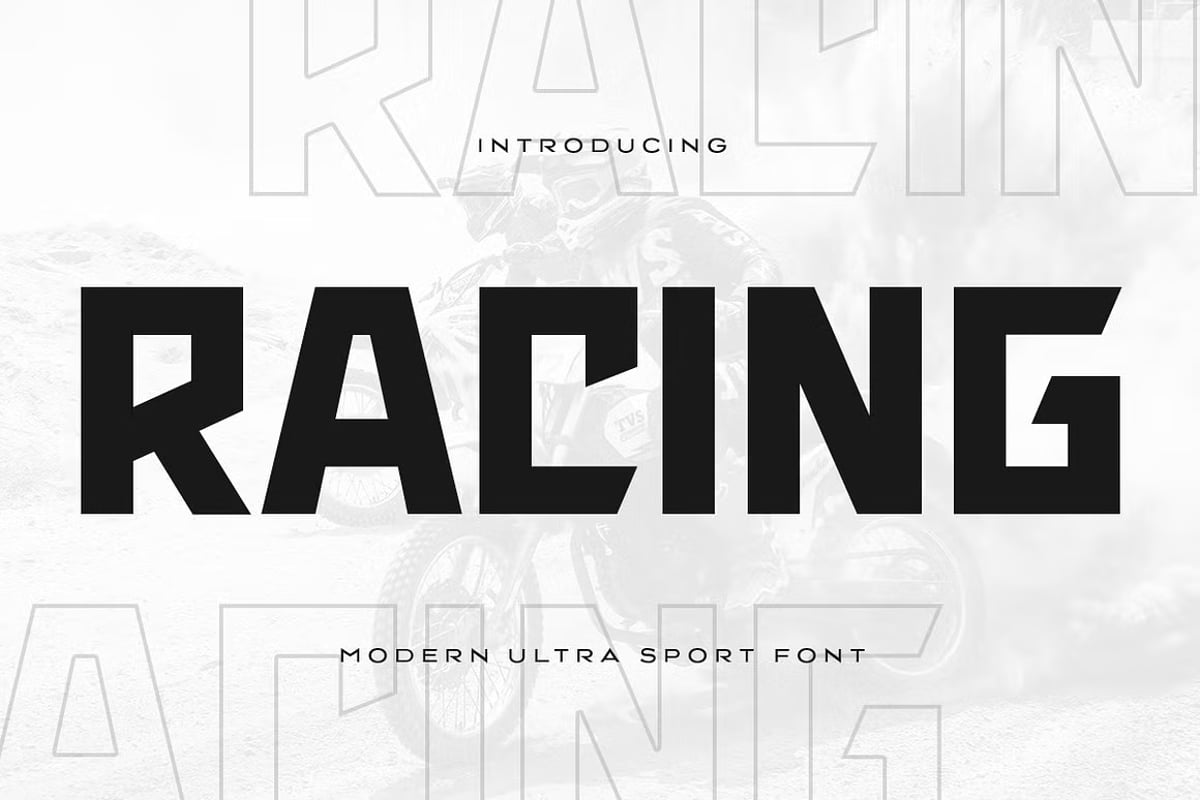
Racing - Modern Ultra Sport Font
Power up your designs with Racing, a modern ultra sport font built for high-impact branding and dynamic headlines. This bold typeface brings energy and momentum to sport, technology, action, and fighting themed projects. Racing font delivers a contemporary edge with powerful letterforms designed to make your main message stand out with confidence. Perfect for creating standout typography that demands attention, Racing font adds professional style to any project requiring bold, action-packed visu...